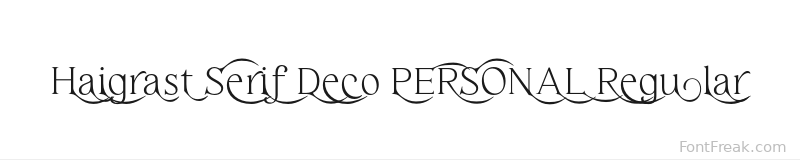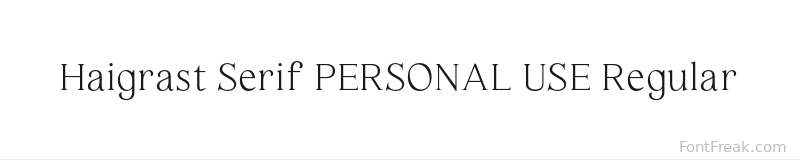
Haigrast Serif Deco PERSONAL Regular
Haigrast Serif PERSONAL USE Regular
Haigrast Serif Deco PERSONAL Regular, designed by Mans Greback, is a captivating serif font that embodies the essence of decorative typography. This font showcases a unique blend of traditional serif characteristics with modern flair, making it ideal for various creative projects. The strokes are elegantly styled, featuring a medium weight that provides a balanced contrast against the clean, flowing lines. The spacing is well-considered, allowing for legibility while maintaining a decorative aesthetic. With its intricate flourishes and artful embellishments, Haigrast Serif Deco PERSONAL Regular brings a touch of sophistication to any design.
This font is particularly well-suited for wedding invitations, where its romantic and elegant style can set the tone for the special day. It also shines in movie posters, adding a vintage charm that captures attention and sparks interest. Restaurant menus can benefit from its decorative elements, inviting diners with a visually appealing presentation of the offerings. Additionally, graphic designers looking to create eye-catching branding materials will find this font an excellent choice for logos and promotional materials. Content creators aiming to produce visually engaging online content can also leverage its unique style to enhance their visual storytelling.